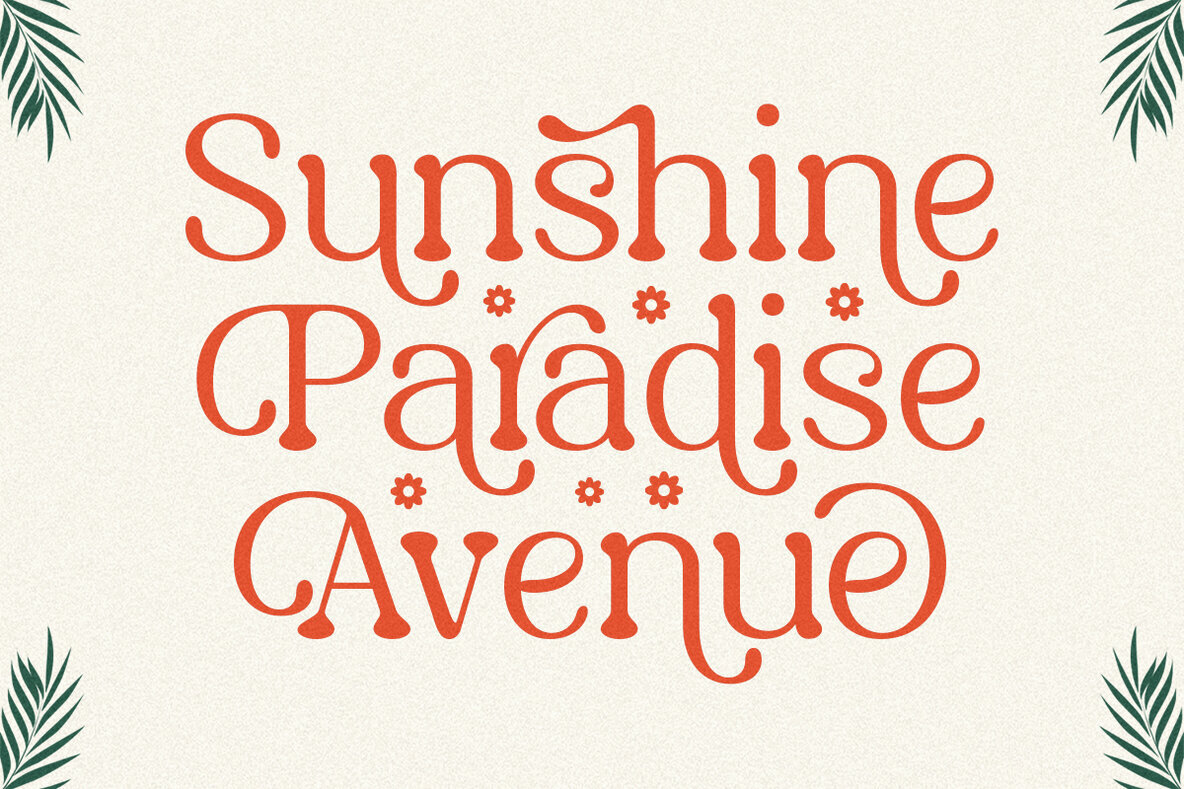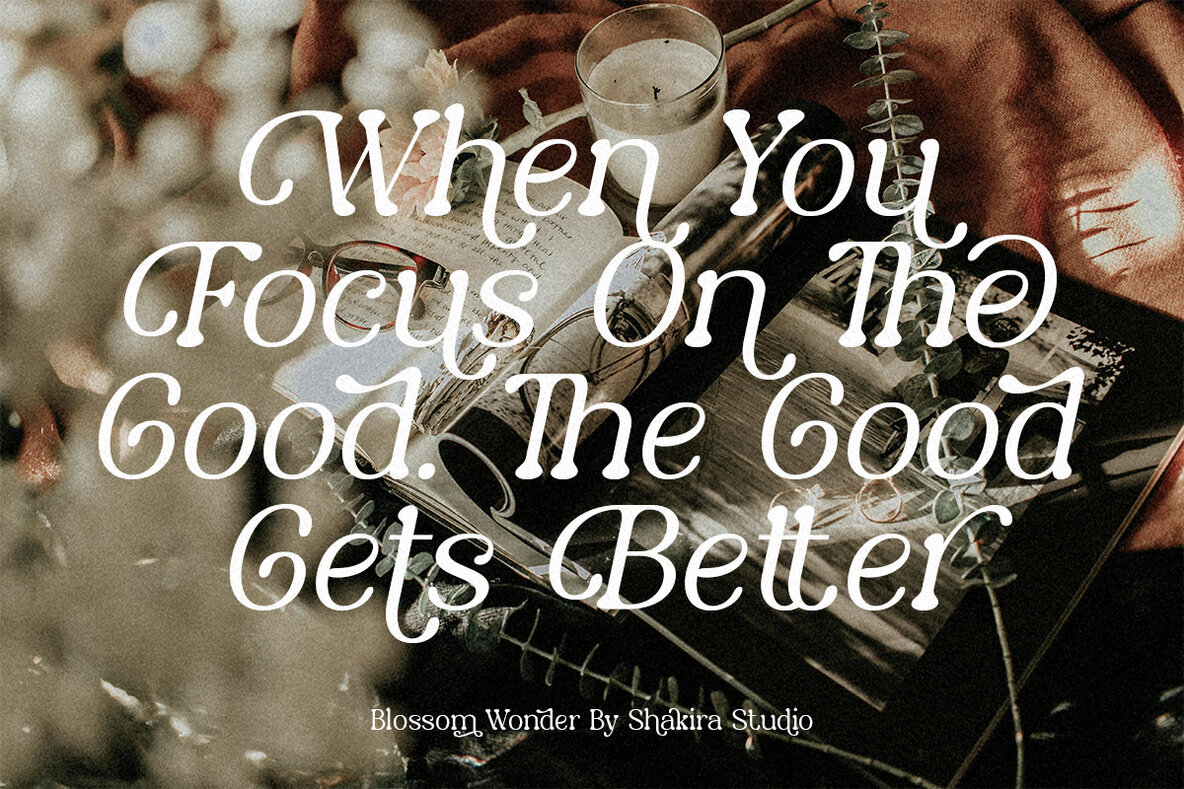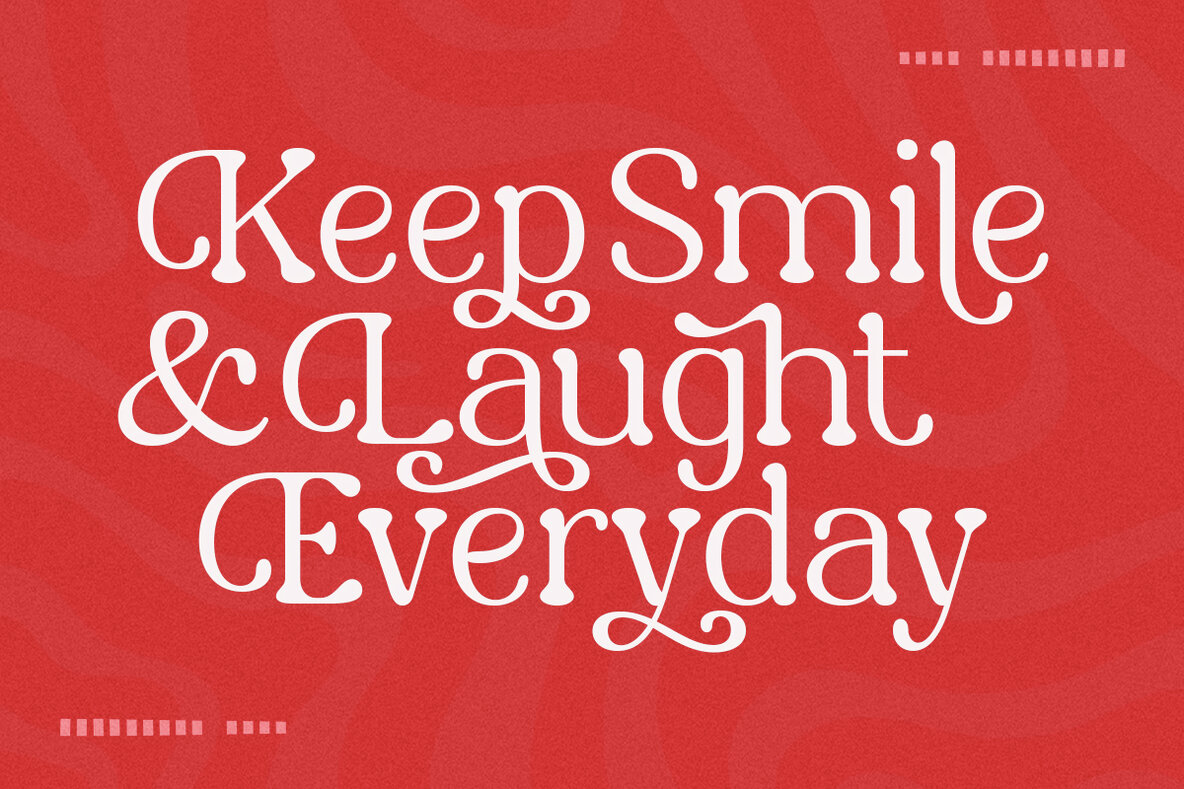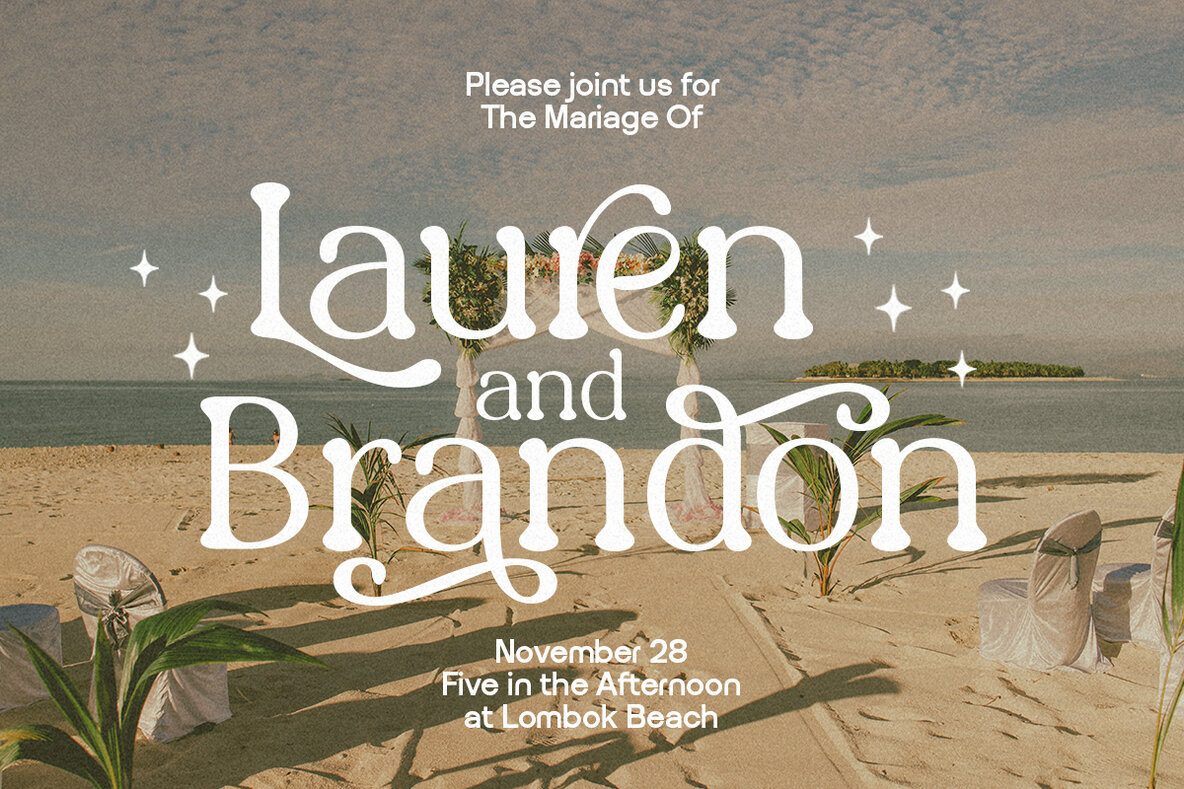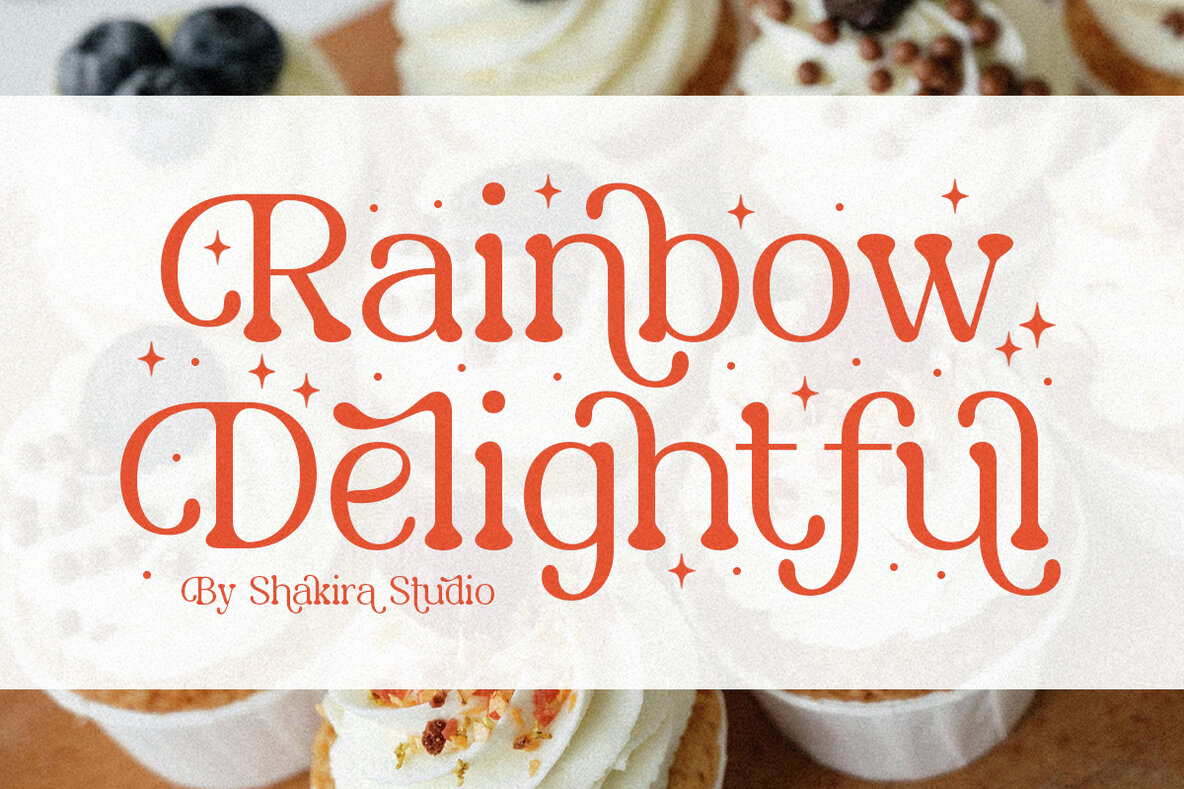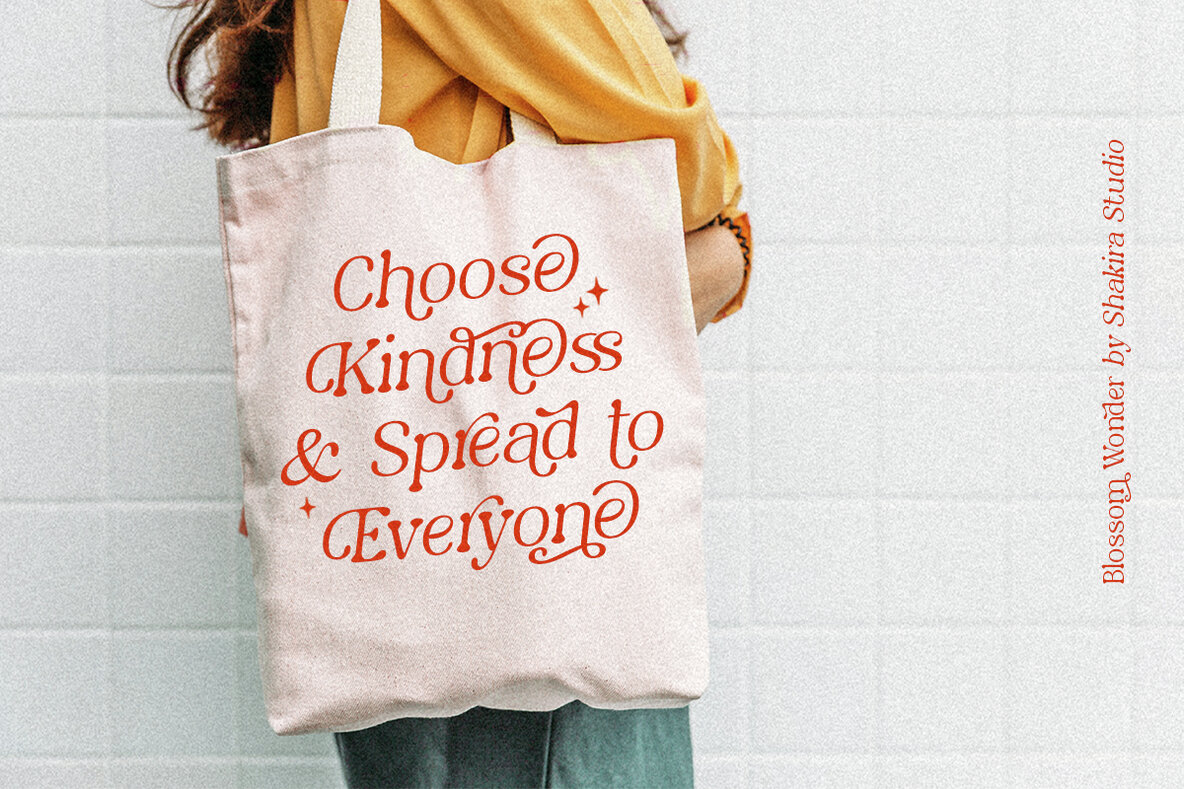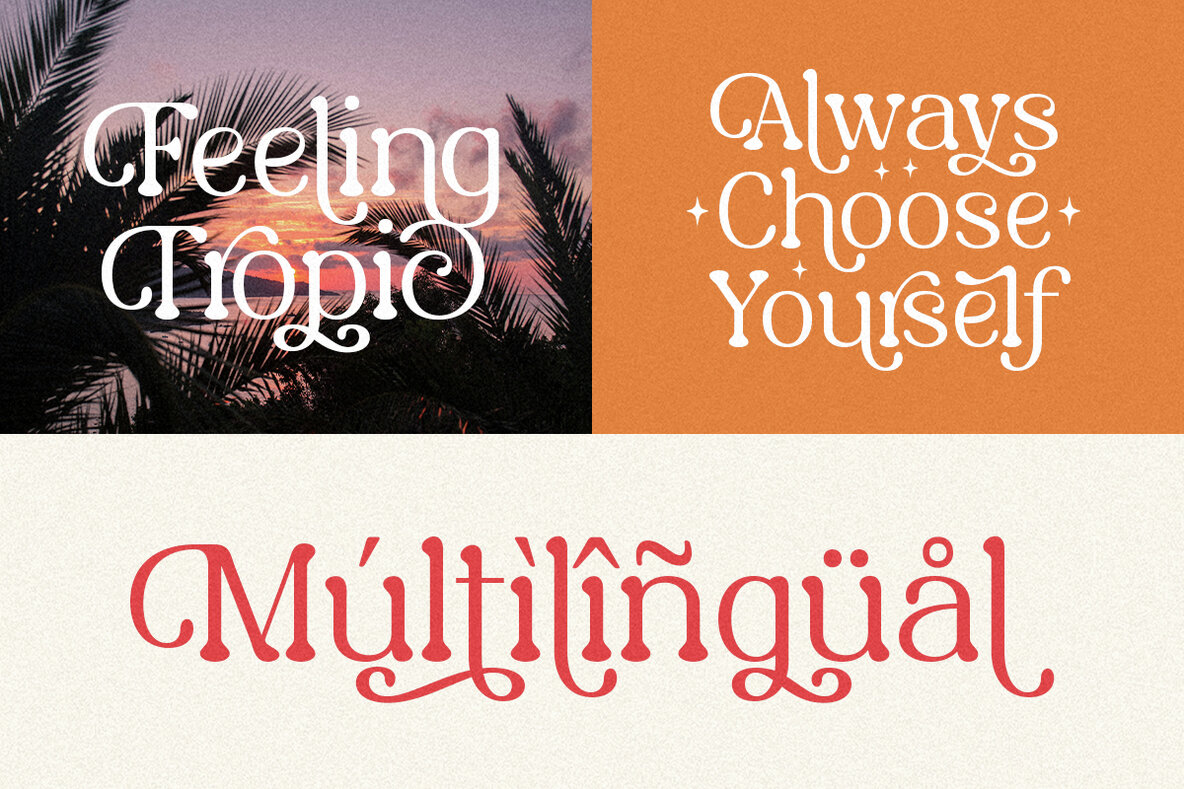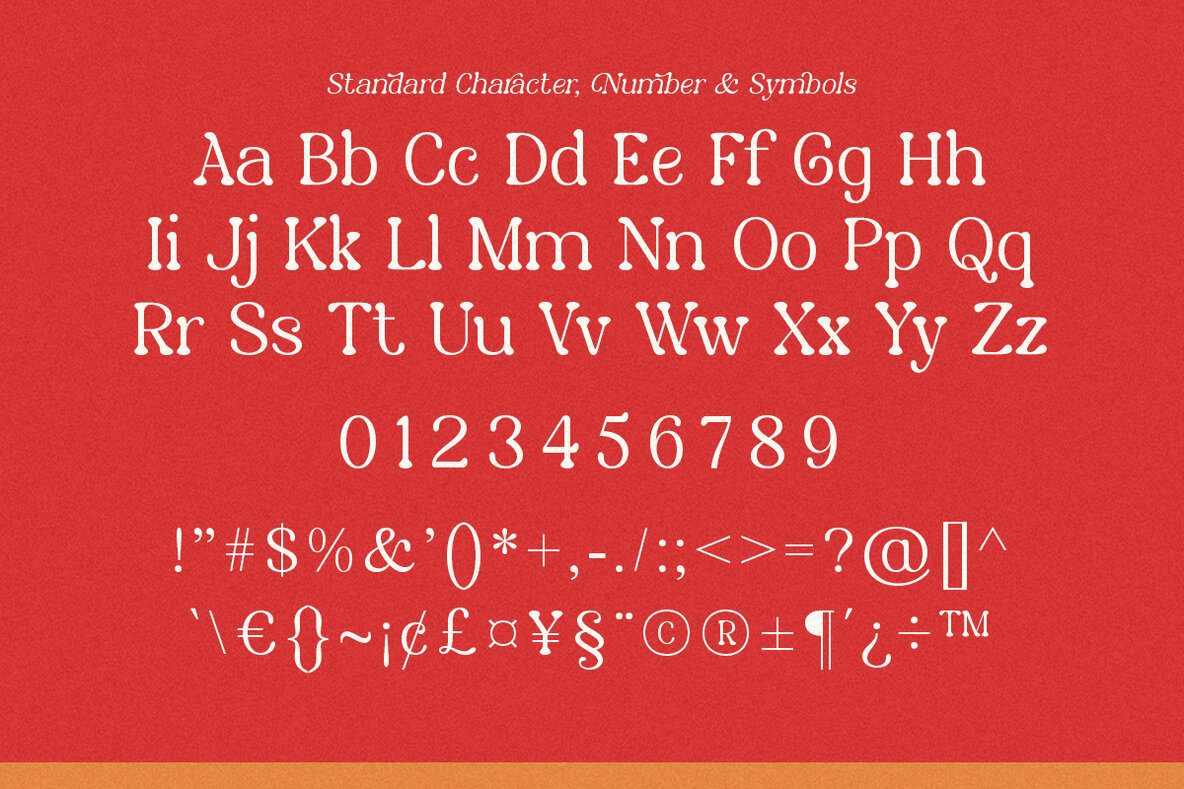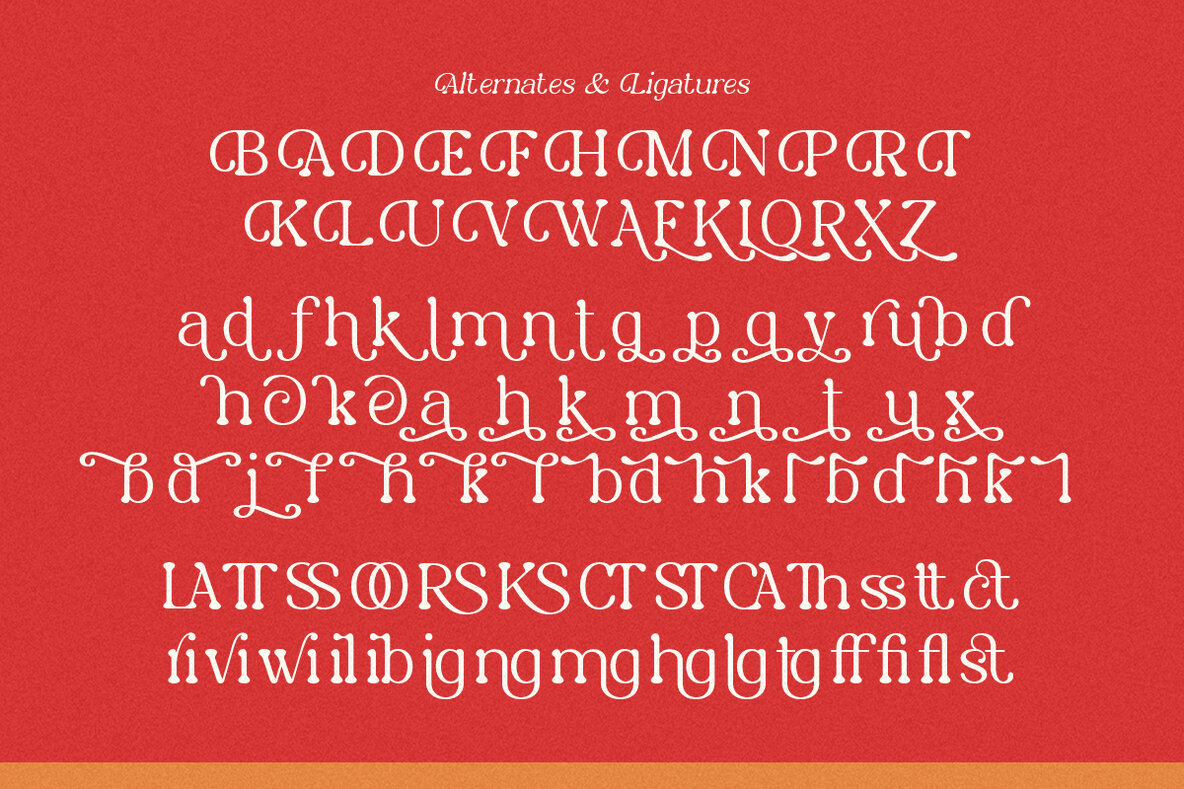
Blossom Wonder Font
Discover the elegance of Blossom Wonder, a hand-drawn serif font designed with unique alternates and ligatures. This font offers a seamless blend of classic charm and modern flair, making it perfect for branding, logo design, and various creative projects. Blossom Wonder stands out with its stylish and artistic details, allowing your designs to exude sophistication and creativity.
Blossom Wonder includes Regular and Italic styles, making it versatile for different design needs. It supports multilingual characters, ensuring your work resonates across diverse languages like Afrikaans, French, German, Italian, Spanish, and Turkish, among others. The font features OpenType capabilities, including ligatures and alternates, and is compatible with popular design software such as Adobe Illustrator, Photoshop, InDesign, and even Microsoft Word. With PUA encoded characters, Blossom Wonder is fully accessible without the need for additional design software, ensuring a smooth and efficient design process.